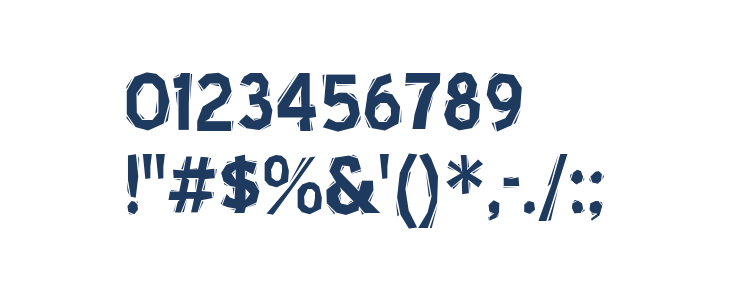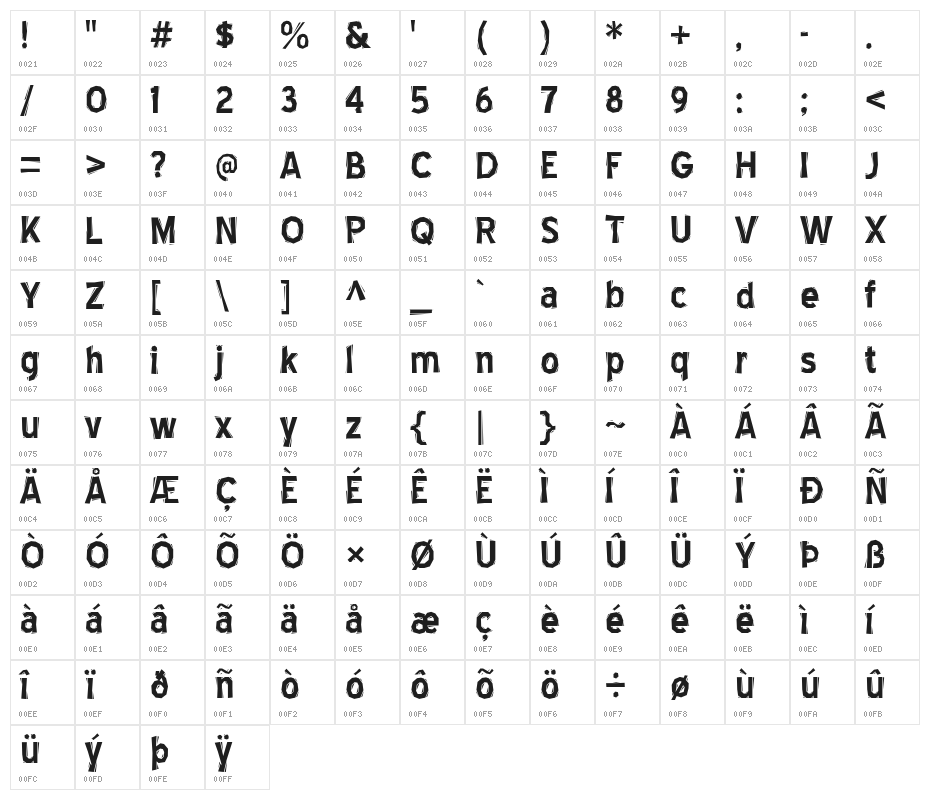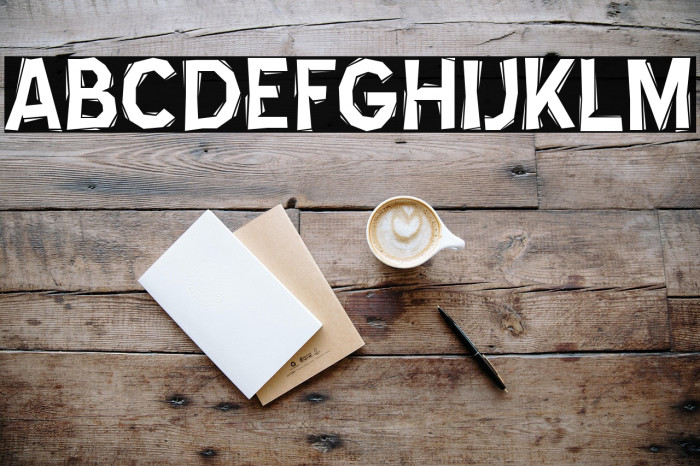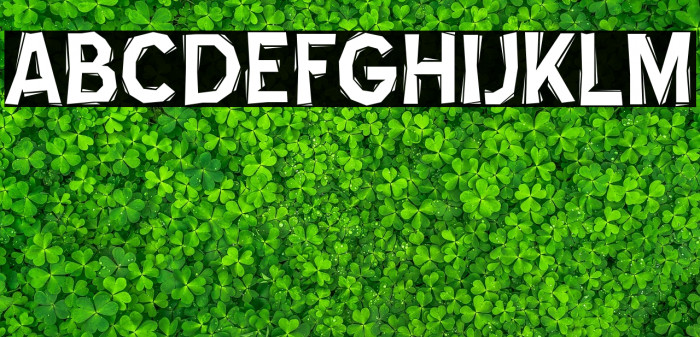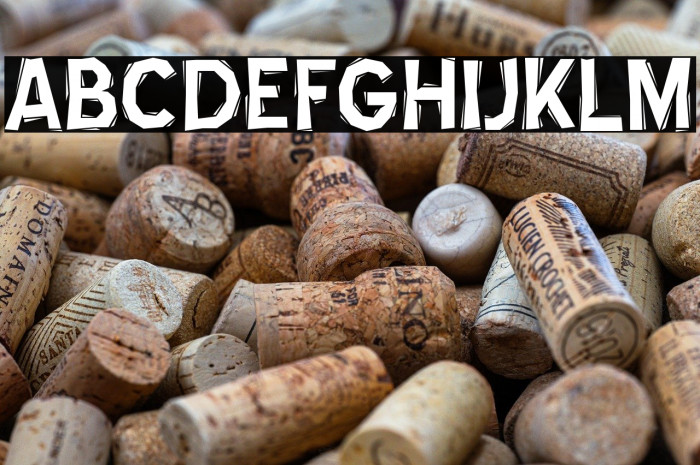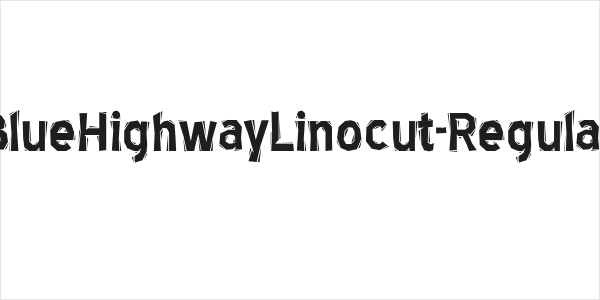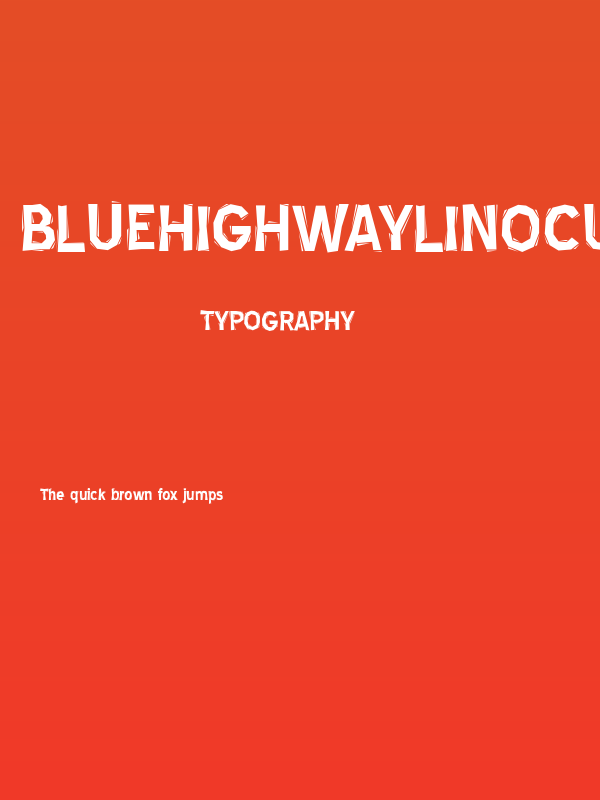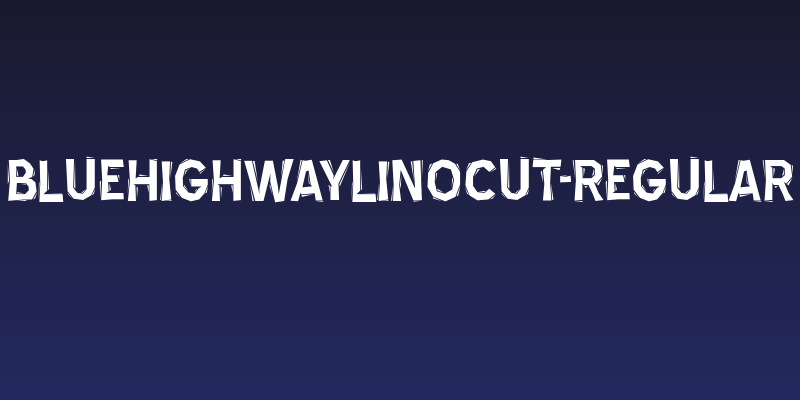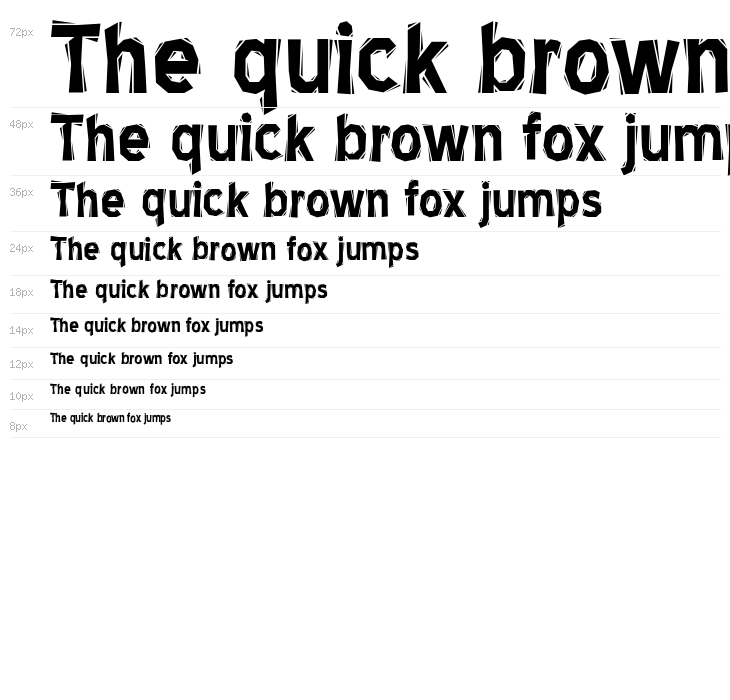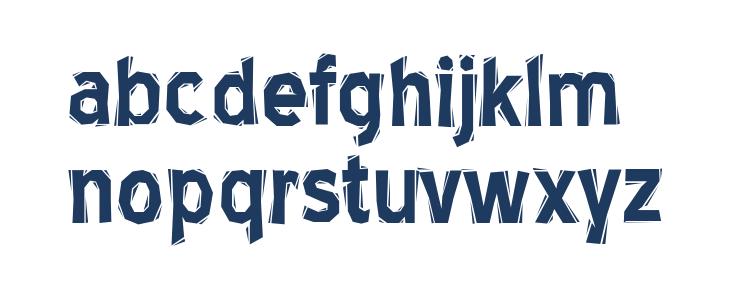
BlueHighwayLinocut-Regular Font
BlueHighwayLinocut-Regular Description
This font features a bold and rugged design, reminiscent of linocut art techniques. The characters have a hand-carved appearance with uneven edges and a slightly distressed look, giving it a unique and artistic flair. The uppercase and lowercase letters maintain a consistent style, with angular cuts and a dynamic presence. The numbers and special characters follow the same aesthetic, ensuring a cohesive look across all text. This font is ideal for projects that require a bold, artistic statement, such as posters, album covers, or branding materials that aim to convey creativity and individuality.
| Overall Style | Artistic, Rugged |
| Proposed Projects | Ideal for posters, album covers, branding materials, and any project needing a bold artistic statement. |